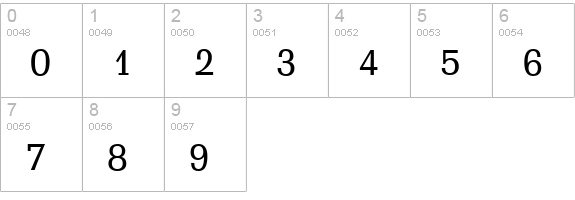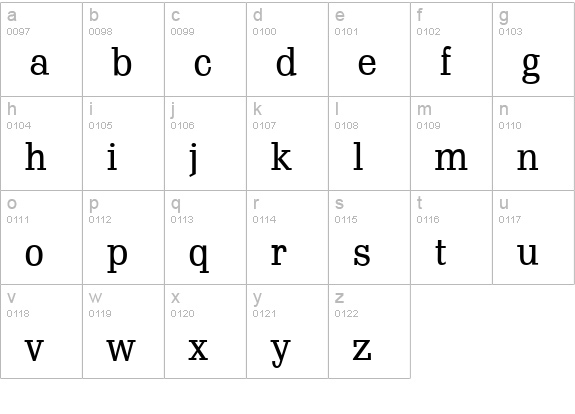
S671-Slab-Regular Font Details
S671-Slab-Regular is the standard, neutral variant in the S671 typeface family \xE2\x80\x94 well suited to general body text, paragraphs, and standard typographic work.
S671 Slab Regular font is a modern and versatile typeface that combines the sturdy characteristics of a slab serif with a contemporary twist. Its clean lines and bold presence make it perfect for a wide range of design projects, from branding to editorial design. The S671 Slab Regular font strikes the perfect balance between professionalism and creativity, making it a go-to choice for designers looking to make a statement. The best part? This high-quality font is available for free download at FontsMarket.com. Whether you're working on a personal project or a client's campaign, you can rely on S671 Slab Regular to elevate your design with its unique style and readability. Don't miss out on the opportunity to add this exceptional font to your collection today.